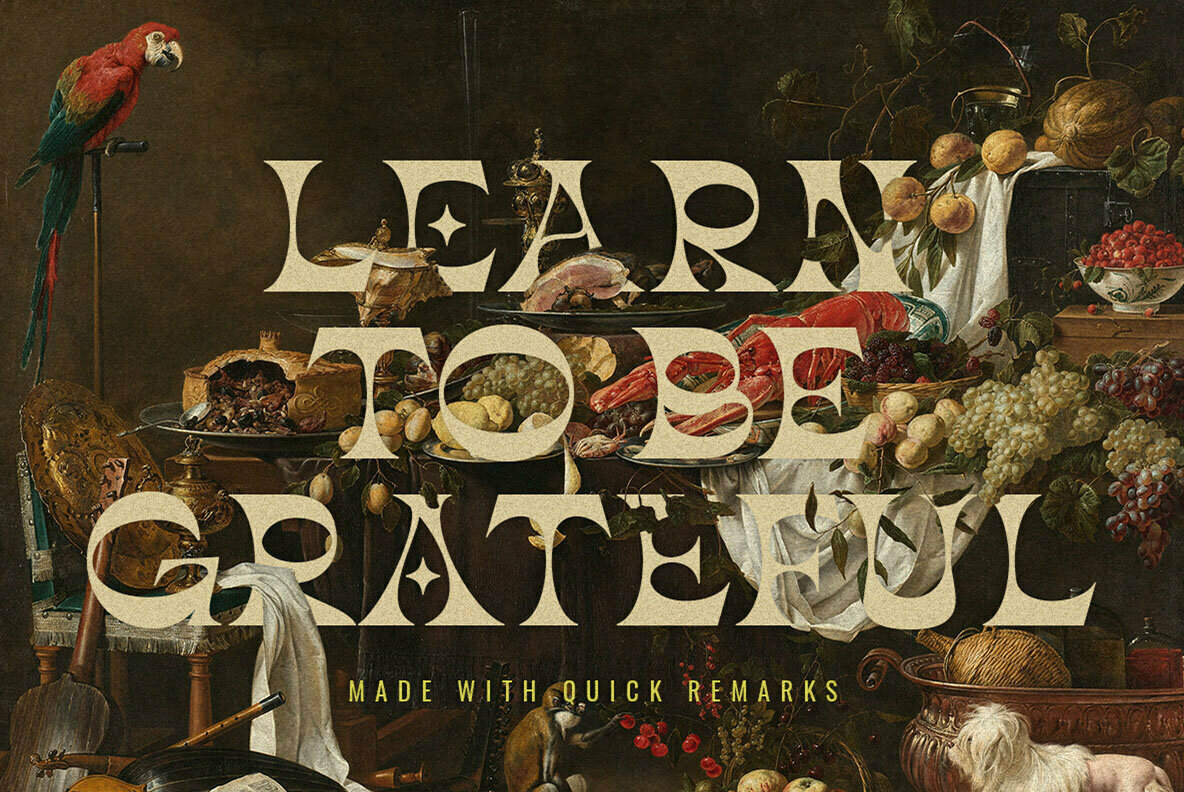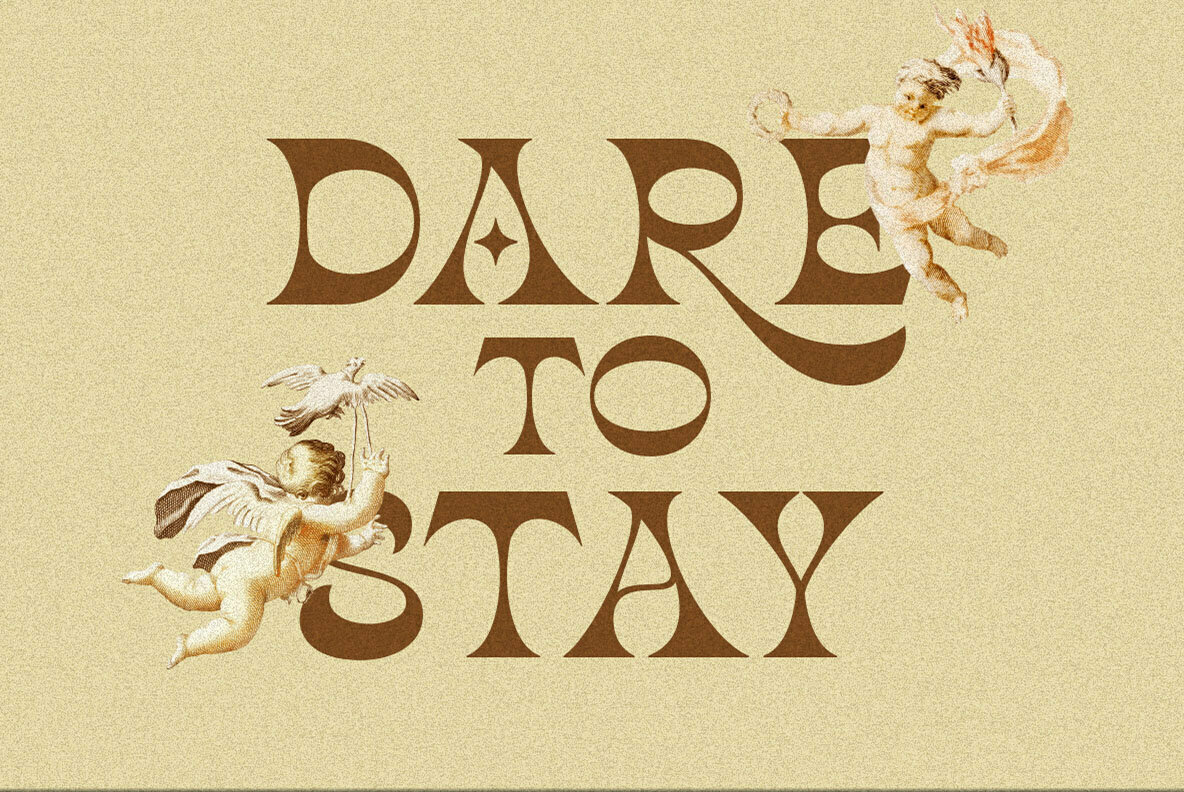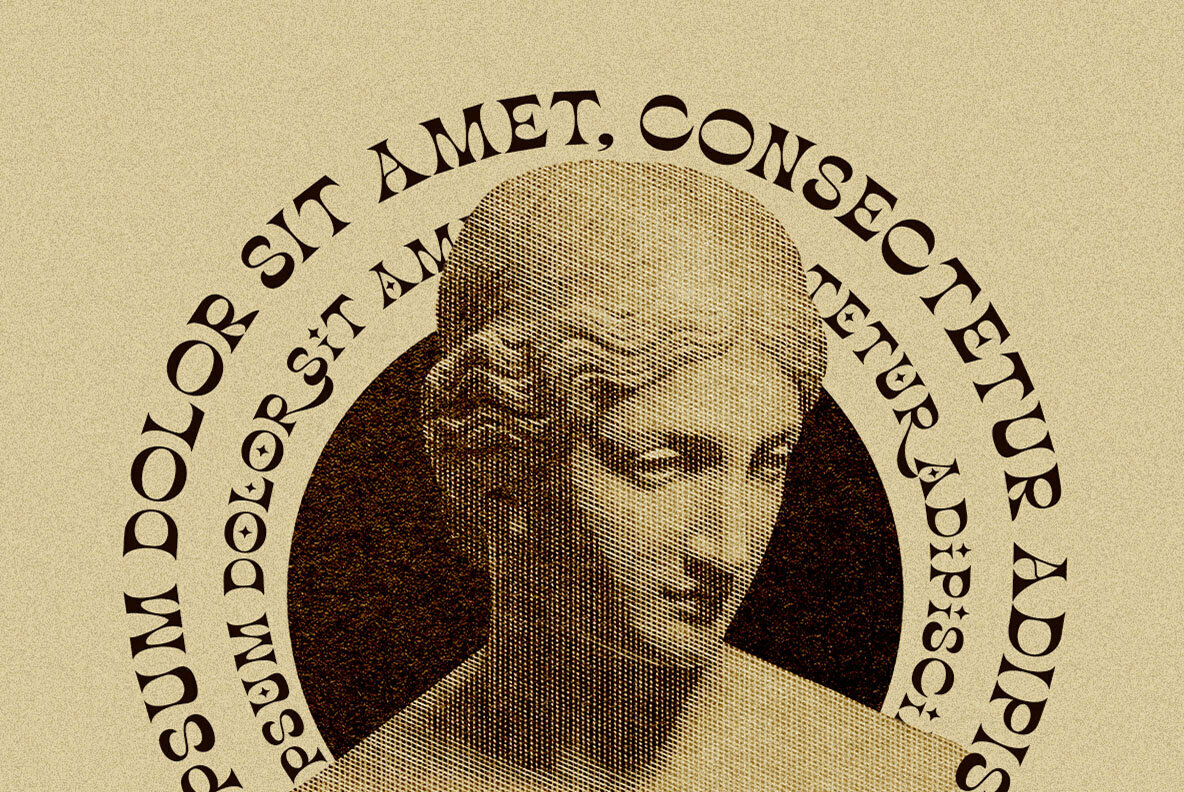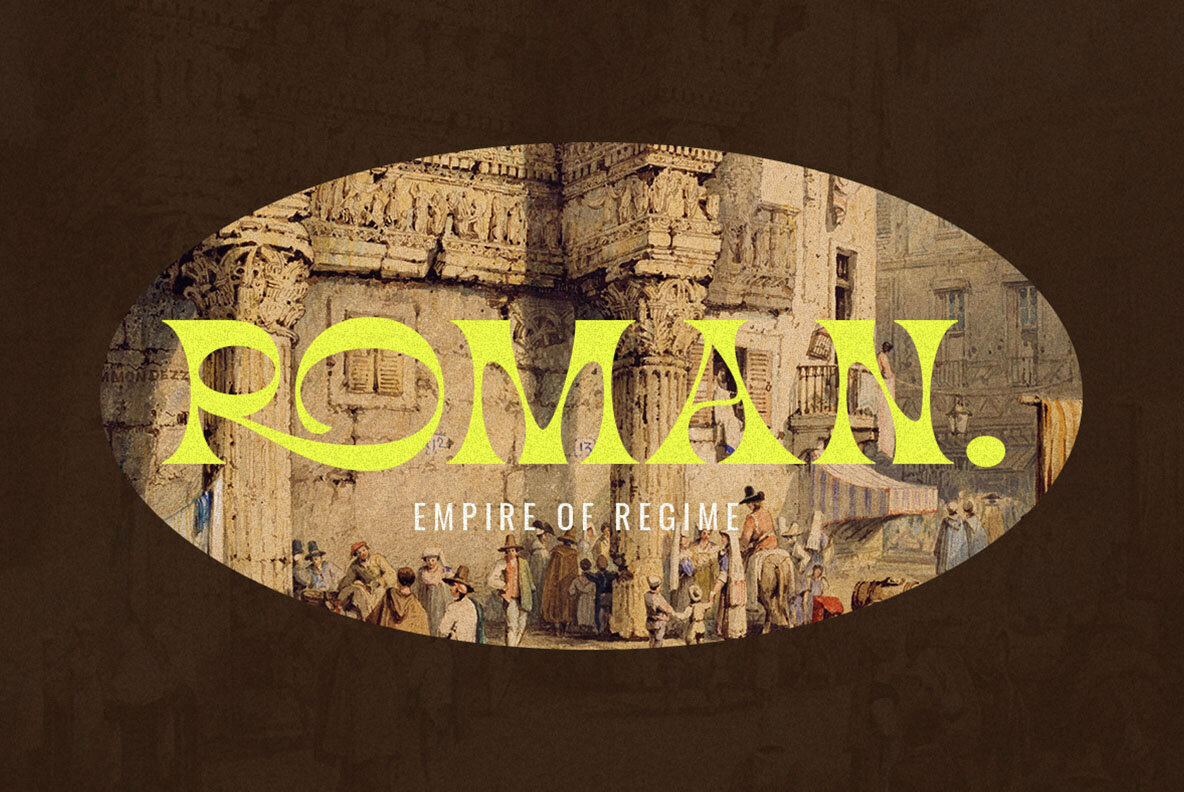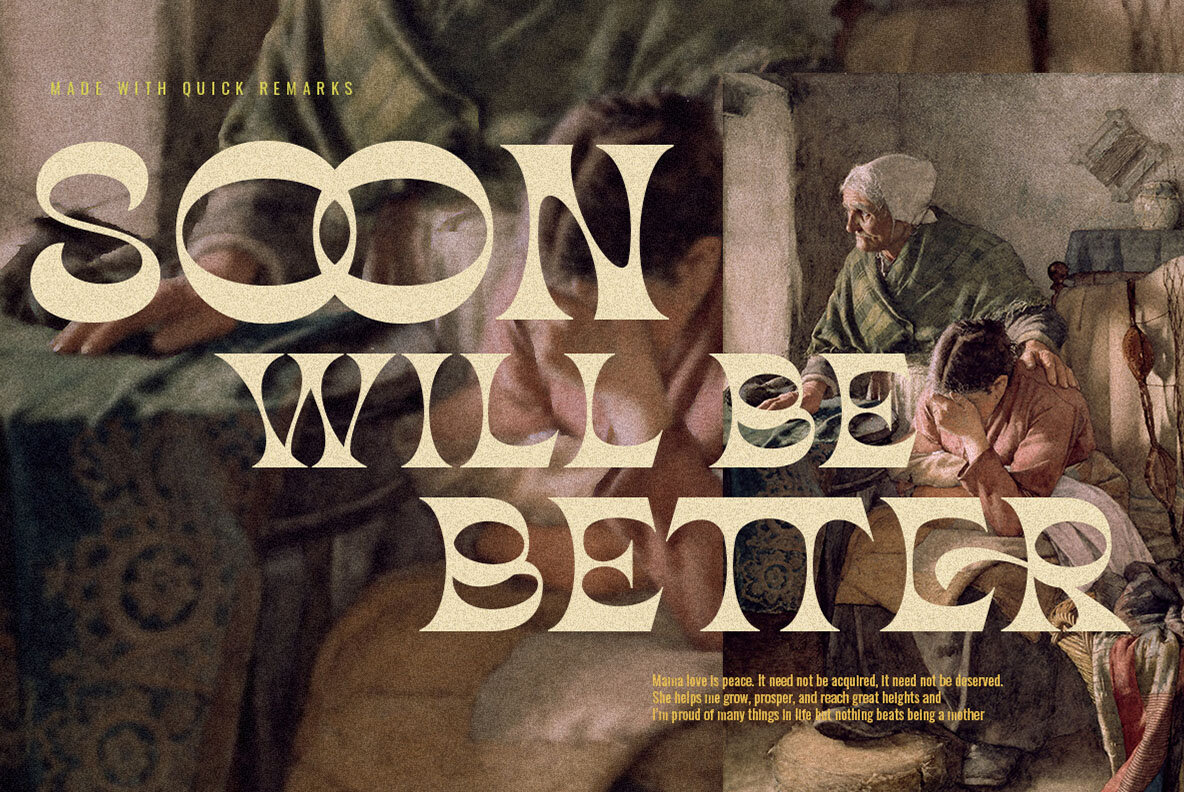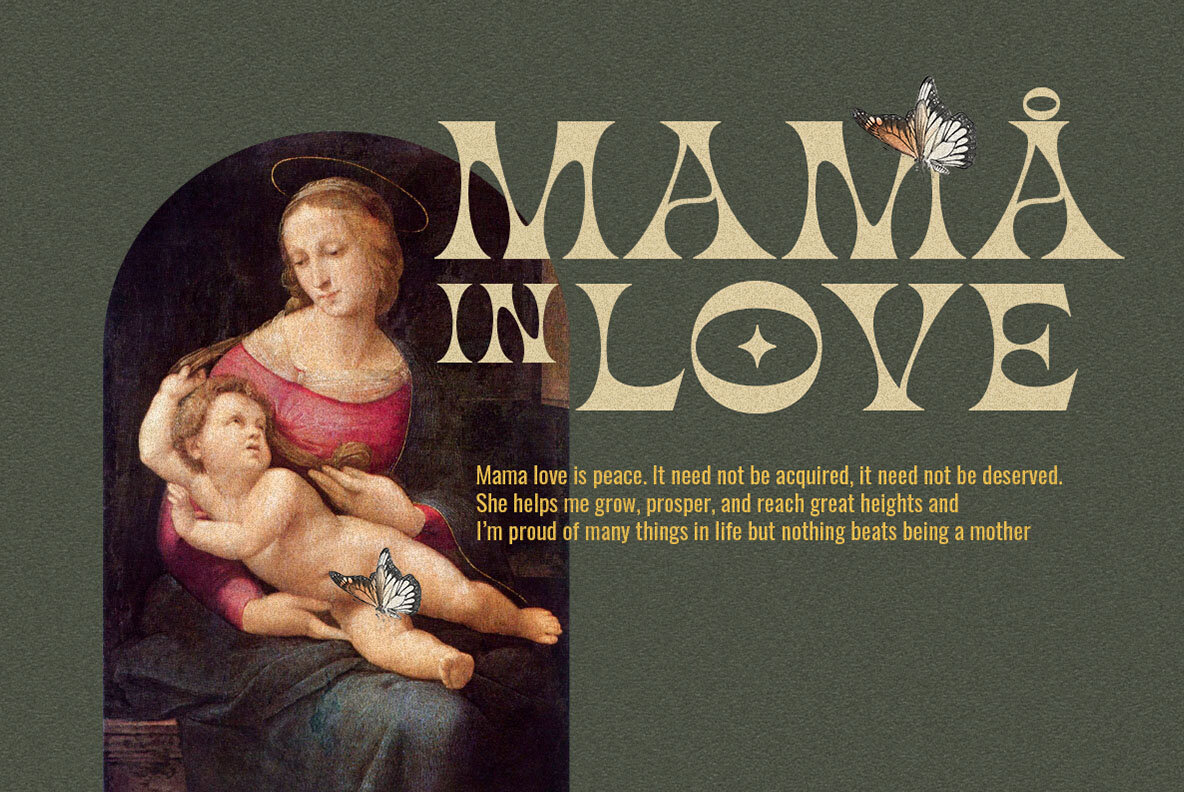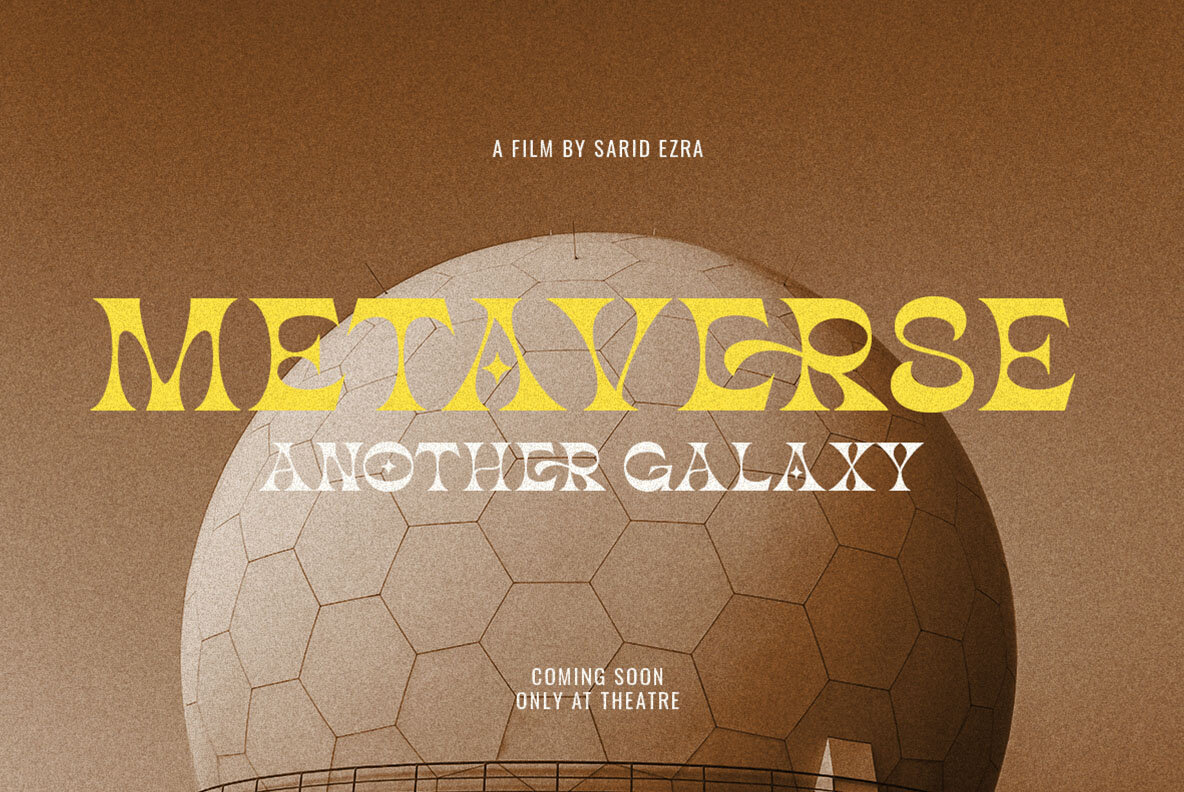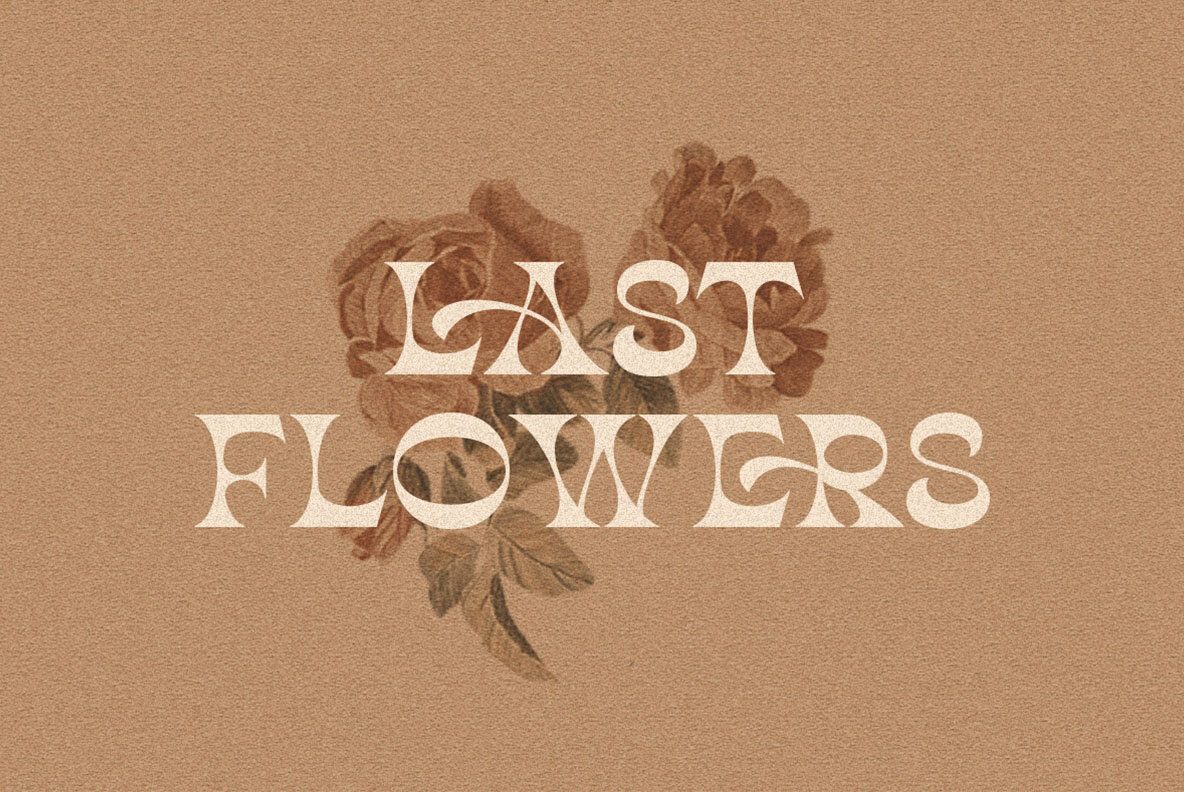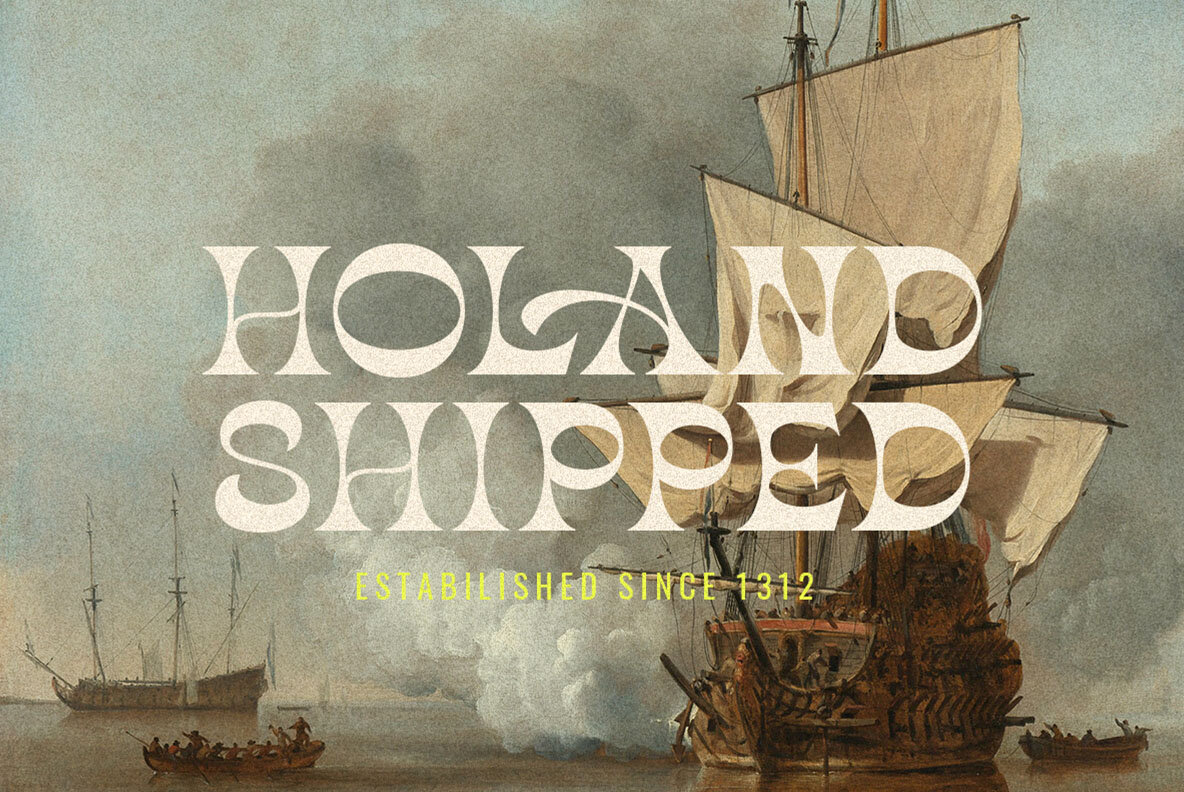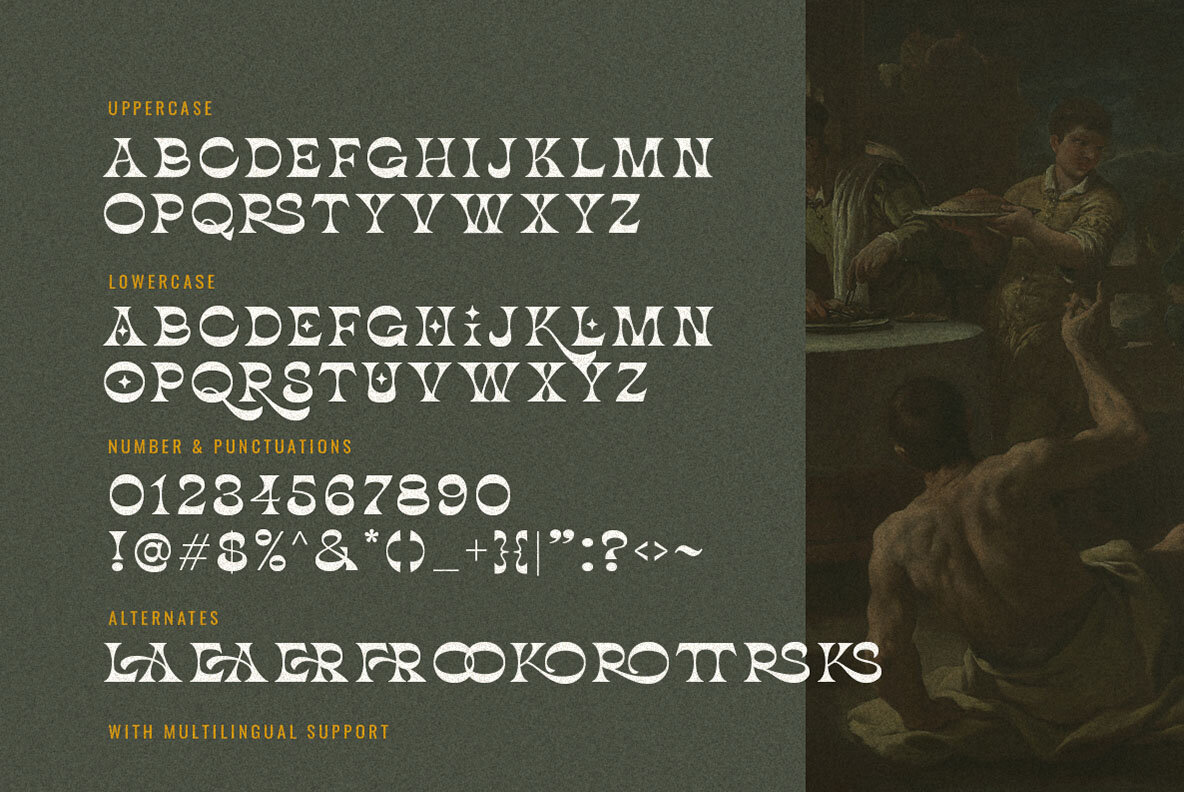
Quick Remarks Font
Quick Remarks Regular
Quick Remarks offers a fresh take on serif typography, blending modern design with traditional elements. Its stylish contrast and unique character set make it an exceptional choice for designers seeking to create striking presentations, posters, or logos. The versatility of Quick Remarks allows for creative combinations of uppercase and lowercase letters, delivering unlimited design possibilities.Quick Remarks: A Modern Serif with Distinctive Contrast